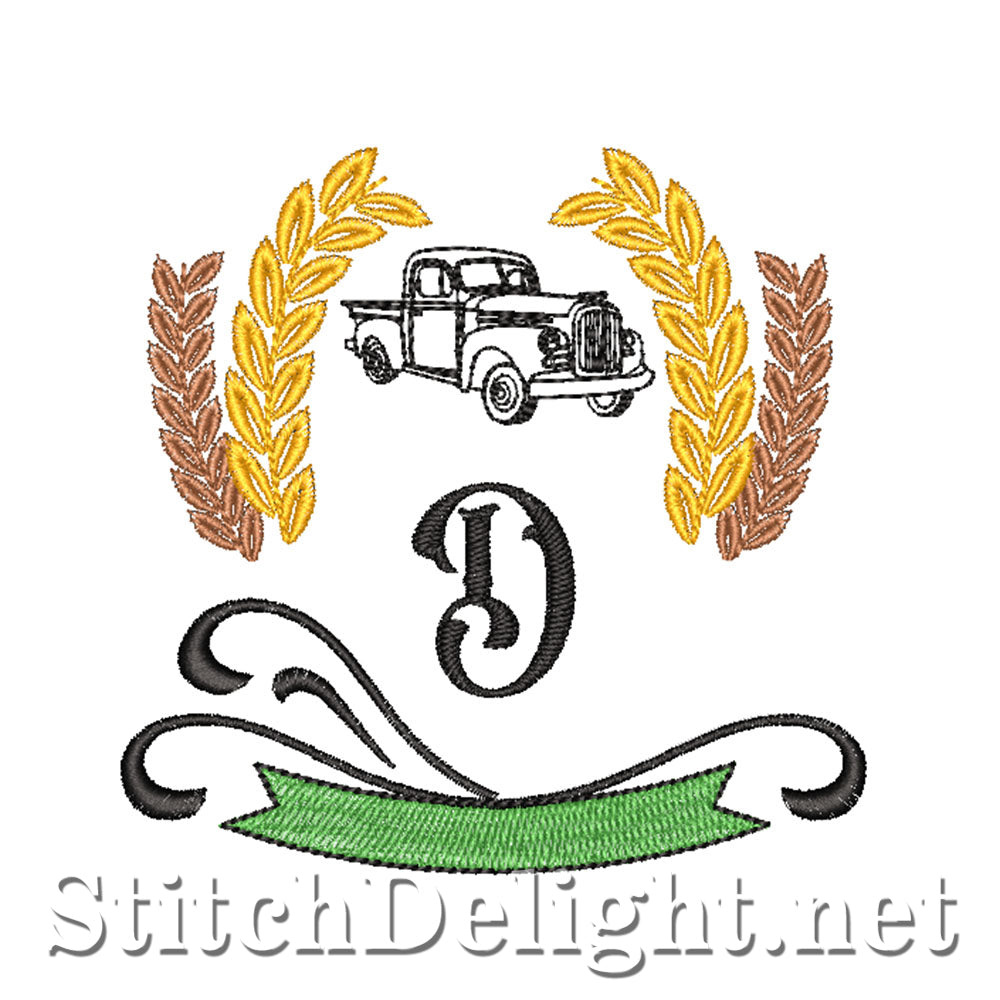
SDS3266 Farmers Font D
This Farmers single letter fits in a 4x4" hoop and is suitable for all fabric types using the correct stabilizer, make your design FarmStyle with this elegant colorful and friendly font! This font has an average height of 3.85"